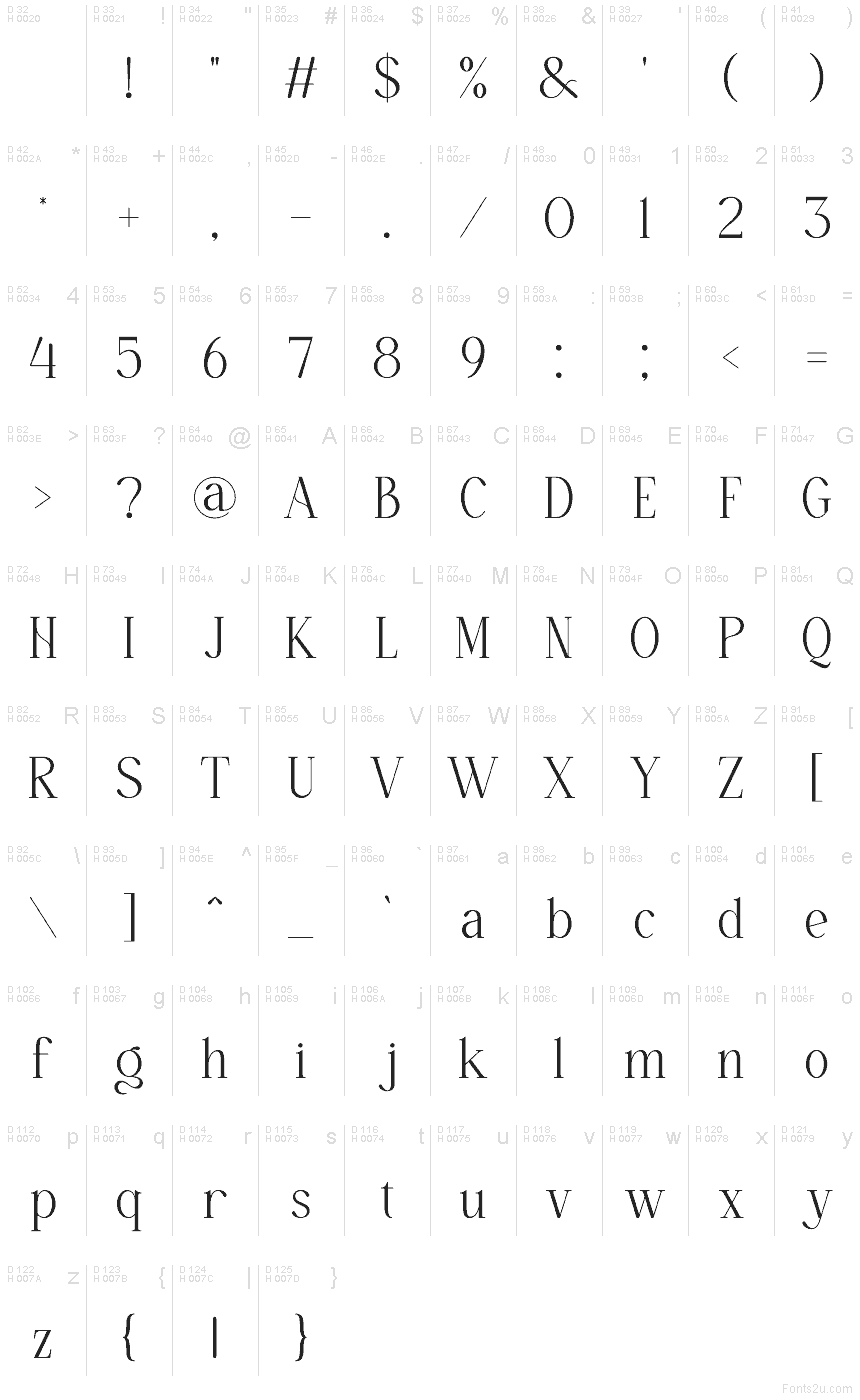
Aserha
Aserha font by Ermedia Studio is a free vintage serif font that flaunts razor-thin hairlines against inky thick strokes. Its sharp wedges and airy counters create a cinematic rhythm—elegant, a touch moody, and just irregular enough to feel handcrafted. Letters stack with poise, so headlines read like silk: crisp, high-contrast, and unmistakably refined.
Using Aserha, your titles snap into focus without shouting. It shines on editorial mastheads, luxury branding, perfume or wine labels, event invitations, boutique signage, and poster headlines. This free font rewards generous tracking at large sizes; for body copy, pair it with a clean sans to keep layouts breathable while Aserha handles the drama.